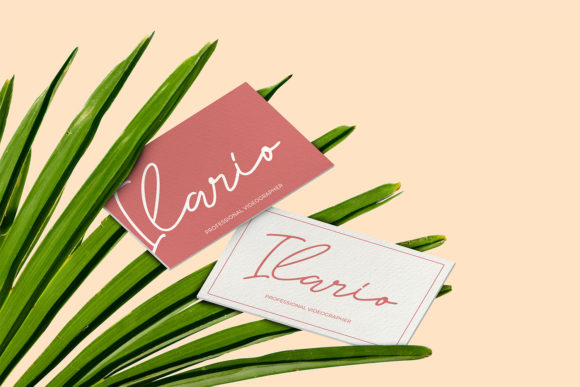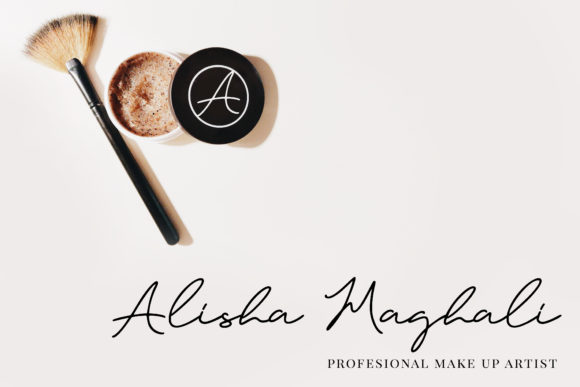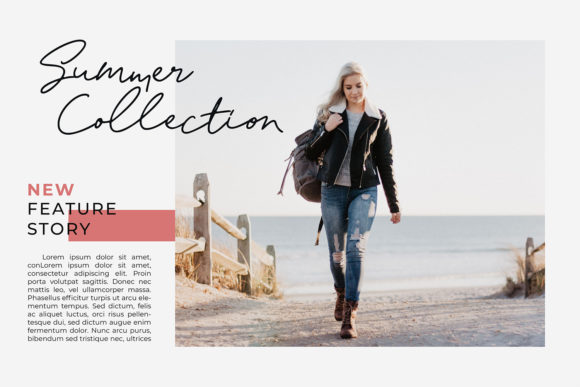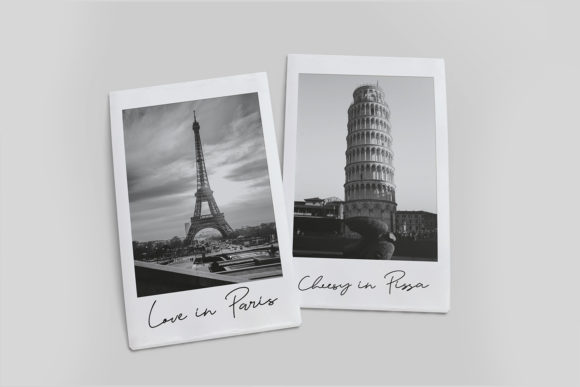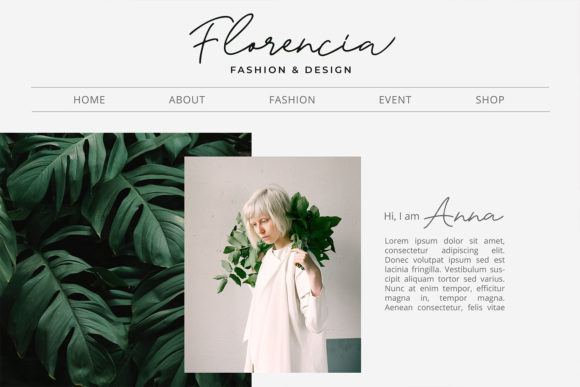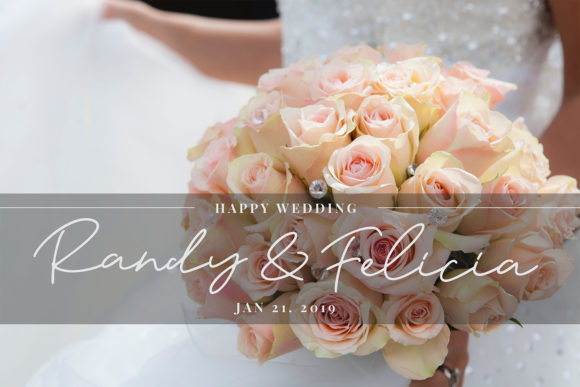
Give Your Designs a Personal Touch with Kileegon Zales Font
You know that moment when you’re browsing through design inspiration boards and suddenly, an idea sparks. You envision a beautiful, handwritten quote on a wedding invitation or a quirky, modern logo for a trendy coffee shop. That’s exactly what Kileegon Zales Font is here for – to help you bring your creative vision to life with its light and modern handwritten charm.
Kileegon Zales Font is designed to add a unique twist to your design projects, making them stand out from the crowd. With its elegant feel and effortless style, this font is perfect for anyone looking to add a touch of personality to their work. Whether you’re a graphic designer, a writer, or a creative entrepreneur, Kileegon Zales Font is a valuable asset to have in your toolkit.
Kileegon Zales Font Key Features
- Font Family: Kileegon Zales is a unique, hand-drawn script font that includes 6 styles (Regular, Italic, Bold, Bold Italic, Outline, and Shadow).
- Unique Characteristics: Kileegon Zales features a distinctive, hand-crafted look with intricate details and subtle flourishes, making it perfect for adding a touch of elegance and sophistication to designs.
Kileegon Zales Font Review
I recently had the chance to work with the Kileegon Zales Font, and I must say it’s an interesting font with some unique characteristics. Here’s my honest take on what works well and what doesn’t.
- The Kileegon Zales Font has a beautiful, elegant aesthetic that’s perfect for high-end branding or luxury products.
- The font is highly legible, even at small sizes, making it a great choice for digital applications.
- The font’s unique letterforms and flourishes add a touch of sophistication and whimsy, making it a great choice for creative projects.
- The font may be too ornate for some applications, such as body text or simple headlines.
- The font’s unique letterforms can be distracting in certain contexts, such as in long blocks of text.
- The font may not be suitable for languages that require a more straightforward or simple font.
The Kileegon Zales Font is a beautiful, elegant font that’s perfect for high-end branding or luxury products. While it may have some limitations, it’s a great choice for creative projects that require a touch of sophistication and whimsy. With careful application, this font can add a unique touch to any design project.
Getting the Most Out of the Kileegon Zales Font
To get the most out of the Kileegon Zales Font, use it in bold and italics to create emphasis and contrast. You can also pair it with other fonts to create a unique and stylish design.
The Kileegon Zales Font is perfect for creating eye-catching headlines, titles, and logos. It’s also great for use in brochures, flyers, and other marketing materials.
Alternatives to Kileegon Zales Font
Playfair Display is a luxurious and elegant serif font, perfect for high-end branding and publishing. It features intricate details and a classic look. Use it for magazine titles, luxury product packaging, and formal invitations. Compared to Kileegon Zales Font, Playfair Display has a more refined and sophisticated feel, making it ideal for projects that require a touch of luxury.
Pacifico is a beautiful and elegant script font, perfect for adding a touch of sophistication to your designs. It features a classic, handwritten feel and is ideal for branding, advertising, and editorial projects. Compared to Kileegon Zales Font, Pacifico has a more fluid and organic feel, making it perfect for projects that require a personal touch.